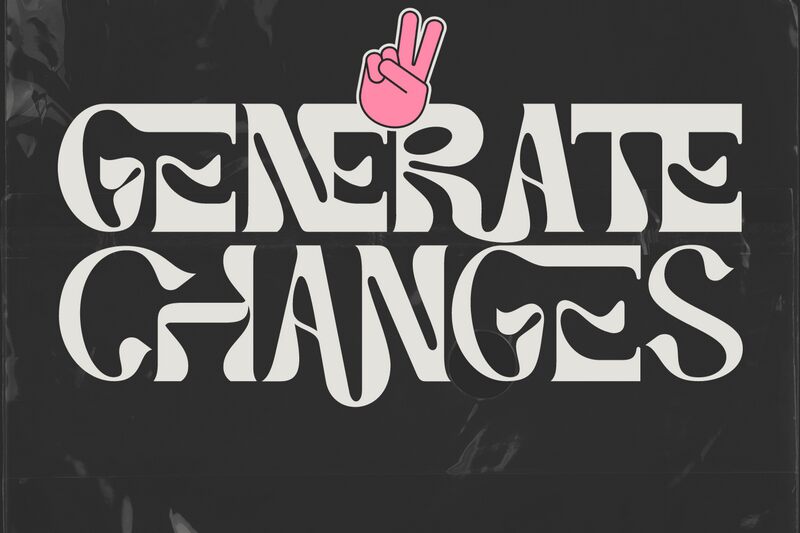
Generate Changes font family by 177Studio is an expressive and modern display family inspired by typography from the 1960s and 1970s. The style of the typeface is artistic, sleek, groovy, and dynamic. It uses the visual language of contrast between the weight, the horizontal and vertical lines, and the rounded and rectangular shapes. This font family includes two font styles that each have a decorative and unique feel. It doesn’t need more than a few characters of text in order to make a strong impression and to stand out.
Generate Changes is confident, bold, and impactful, which makes it a great choice for logos, branding, packaging, music album or concert covers, book titles, streetwear apparel designs, posters, social media posts, and website headlines. In all cases, it could attract customers, followers, and visitors with its beauty and funky vibe.